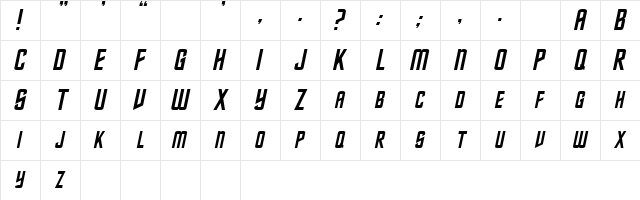
Nebula Italic
Design Context for Nebula Typeface
Nebula offers clean, dependable letterforms without strong stylistic allegiance, making it a practical choice for designers who need flexibility. Its italic angle brings a sense of urgency and motion to the letterforms.
Pro Tip: Use Nebula for emphasis, pull quotes, and subheadings where its slanted energy can add rhythm to the layout.